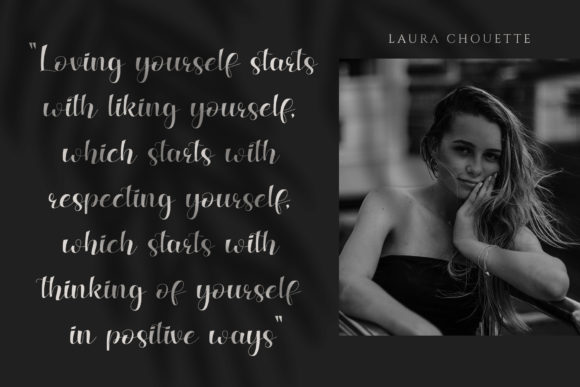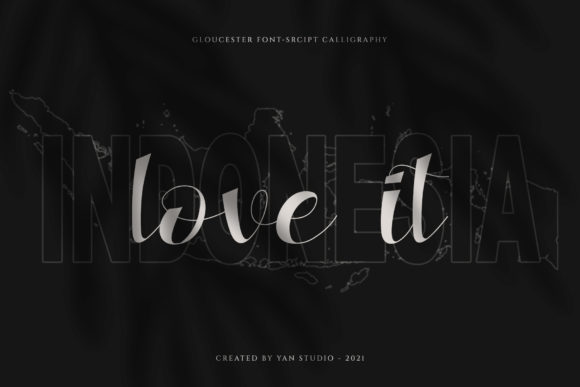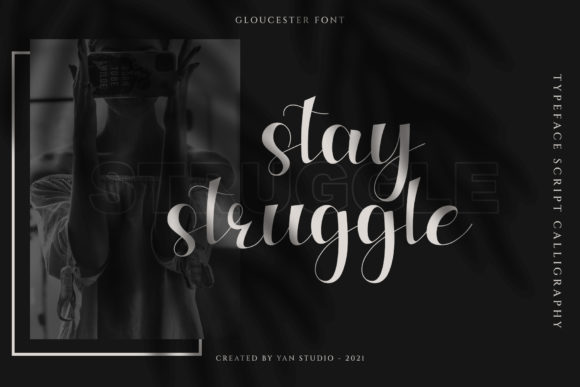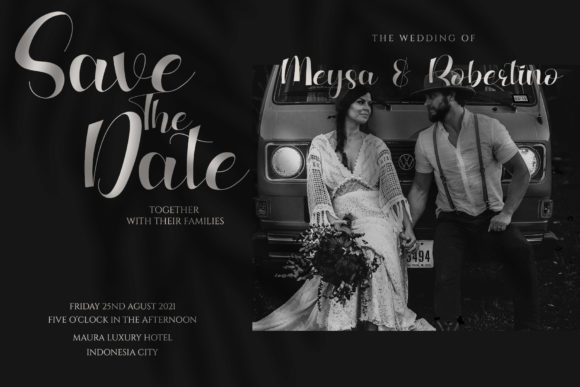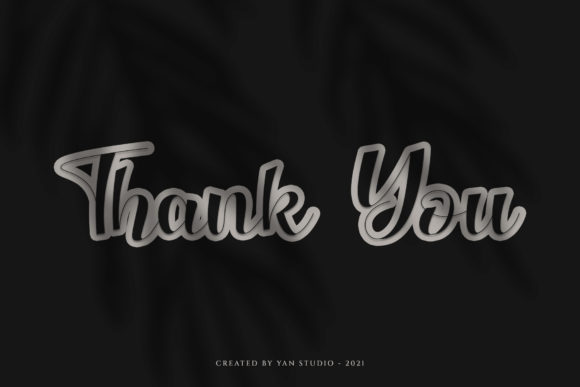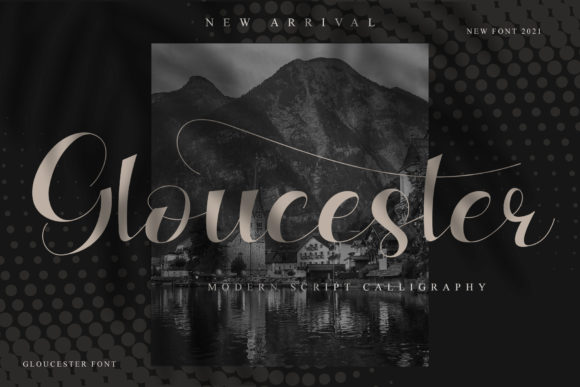
Discover the Elegance of Gloucester Font: A Lovely and Delicate Script Font
Are you a designer or crafter looking for a beautiful and refreshing font to elevate your designs? Look no further than the Gloucester Font, a lovely and delicate script font that exudes elegance and class. In this article, we’ll dive into the world of Gloucester Font, exploring its features, benefits, and uses, and why it’s the perfect addition to your typography collection.
What is Gloucester Font?
Gloucester Font is a carefully crafted script font designed to bring a touch of sophistication and refinement to your designs. With its delicate lines, flowing curves, and elegant strokes, this font is perfect for creating beautiful and eye-catching text. Whether you’re working on a logo, branding, packaging, or any other design project, Gloucester Font is sure to impress.
Features of Gloucester Font
So, what makes Gloucester Font so special? Here are some of its key features:
• Delicate and elegant design: Gloucester Font boasts a beautiful, hand-crafted design that’s perfect for creating sophisticated text.
• Script style: This font features a classic script style that’s ideal for adding a touch of elegance to your designs.
• High-quality and scalable: Gloucester Font is designed to be high-quality and scalable, making it perfect for use in a variety of design projects, from business cards to billboards.
• Easy to read: Despite its delicate design, Gloucester Font is easy to read, making it perfect for use in body text as well as headlines.
Benefits of Using Gloucester Font
So, why should you choose Gloucester Font for your design projects? Here are some of the benefits of using this beautiful font:
• Adds elegance and sophistication: Gloucester Font is the perfect way to add a touch of elegance and sophistication to your designs.
• Versatile: This font is versatile and can be used in a variety of design projects, from logos and branding to packaging and more.
• Unique and distinctive: Gloucester Font is a unique and distinctive font that’s sure to set your designs apart from the crowd.
• Easy to pair with other fonts: This font pairs well with a variety of other fonts, making it easy to create beautiful and harmonious typography.
Uses of Gloucester Font
So, what can you use Gloucester Font for? Here are some ideas to get you started:
• Logos and branding: Use Gloucester Font to create a beautiful and elegant logo that’s sure to impress.
• Packaging design: Add a touch of sophistication to your packaging designs with Gloucester Font.
• Invitations and stationery: Use Gloucester Font to create beautiful and elegant invitations, business cards, and other stationery.
• Web design: Gloucester Font is perfect for use in web design, from headings and titles to body text.
In conclusion, Gloucester Font is a lovely and delicate script font that’s perfect for designers and crafters looking to add a touch of elegance and sophistication to their designs. With its beautiful design, versatility, and ease of use, this font is sure to become a favorite in your typography collection. So why wait? Try Gloucester Font today and see the difference it can make in your designs!